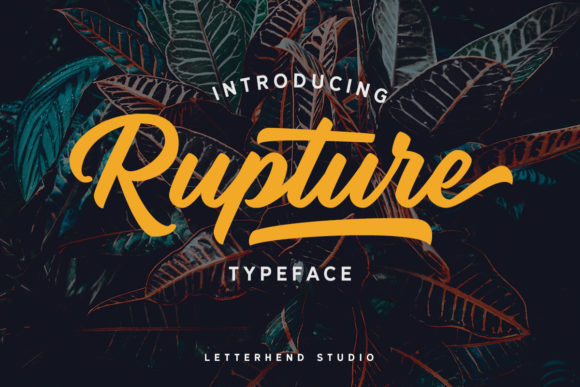
Introducing Rupture Duo Font, the epitome of boldness and elegance in the realm of typography. This extraordinary font duo seamlessly blends two captivating typefaces, offering an unparalleled level of versatility and visual impact. Crafted by the ingenious minds at Letterhend, Rupture Duo Font is destined to transform your creative endeavors into captivating masterpieces.
With its striking and distinctive appearance, Rupture Duo Font exudes an undeniable sense of confidence and sophistication. The meticulously crafted brush strokes and dynamic letterforms create an alluring harmony that captures attention and sparks imagination. Its bold and assertive presence commands attention, making it the perfect choice for conveying powerful messages and leaving a lasting impression.
But Rupture Duo Font's allure extends beyond its visual appeal. It boasts an exceptional level of versatility, effortlessly adapting to a wide range of design projects. Dive into a world of boundless creativity, where you can effortlessly craft logos that exude professionalism, captivating social media posts that demand attention, and website designs that leave visitors mesmerized.
Elevate your branding efforts with Rupture Duo Font, a font duo that embodies sophistication and uniqueness. Experience the thrill of creating designs that resonate with your audience, leaving an indelible mark on their minds. Unleash your creativity and embark on a journey of typographic excellence with Rupture Duo Font.